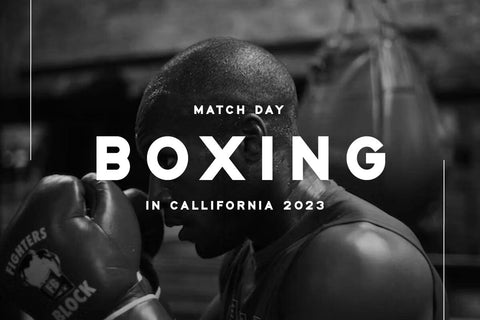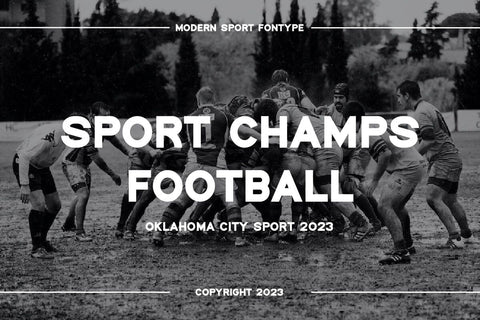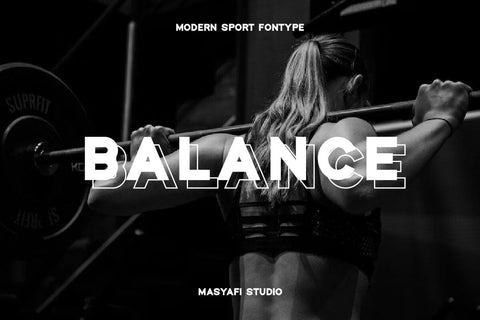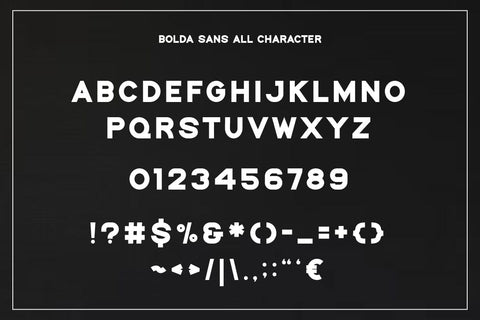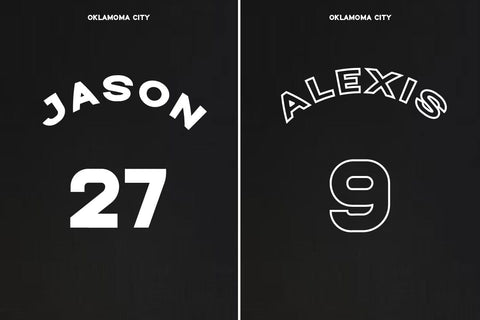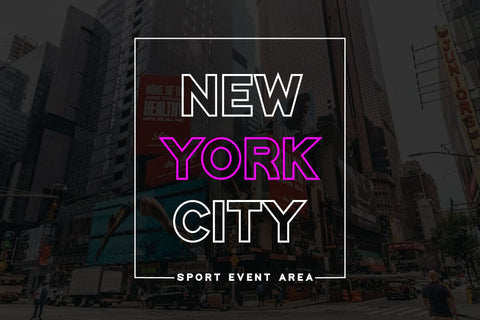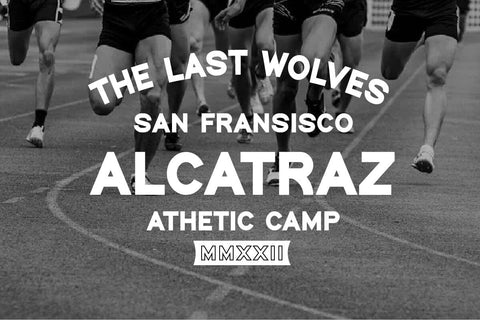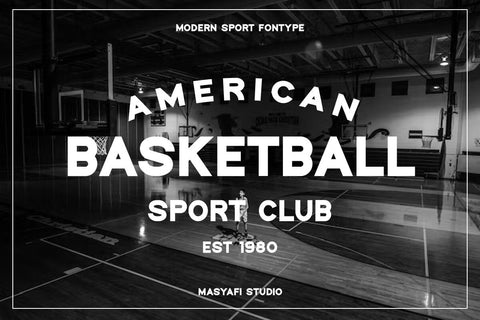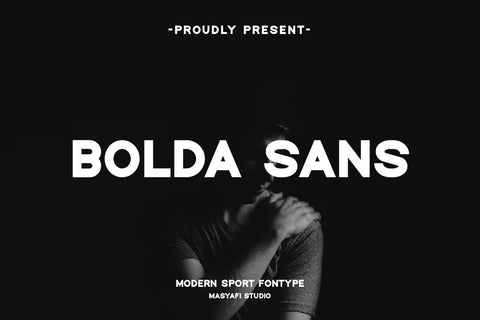
Bolda Sans - Sans Serif Font
Hi, Introducing Bolda Sans - Modern Sans Serif Font
A sans serif font with a modern style inspired by the world of sports, giving it a professional, fresh, modern and manly impression. This font is great for websites, apps, craft products, apparel products, printing, photography and other creative ideas